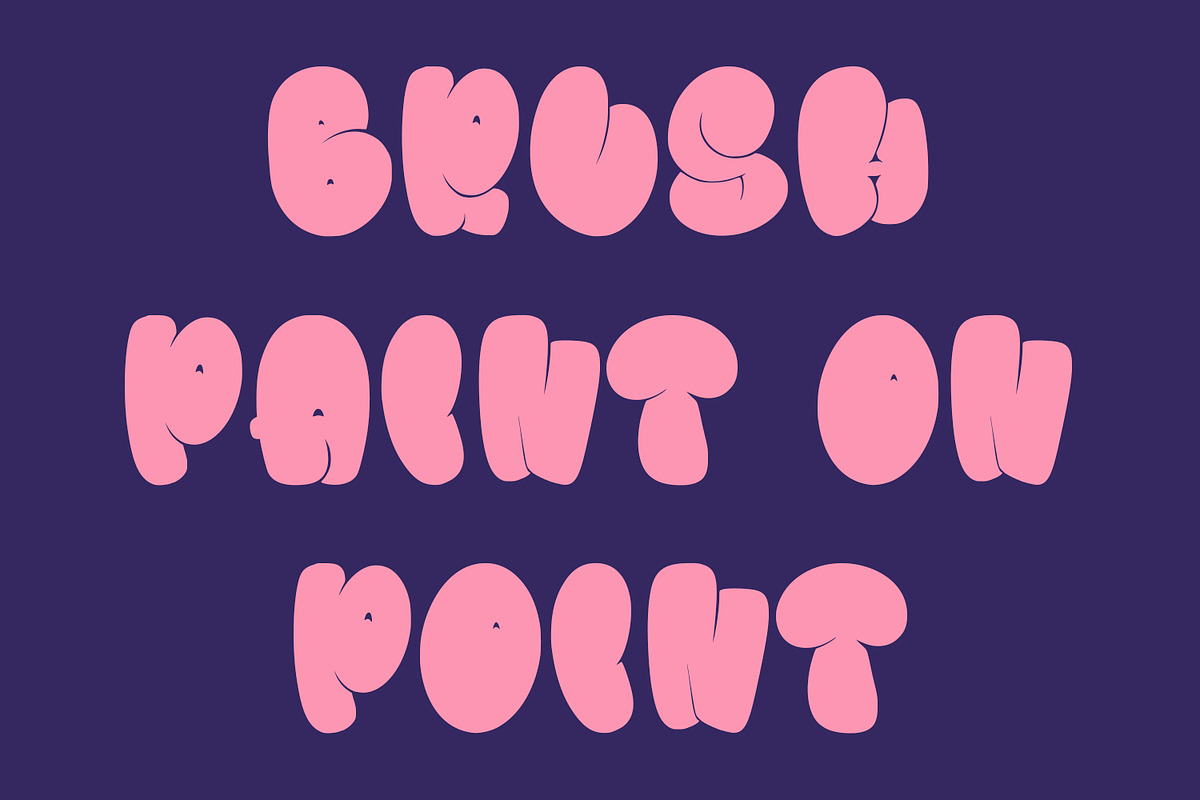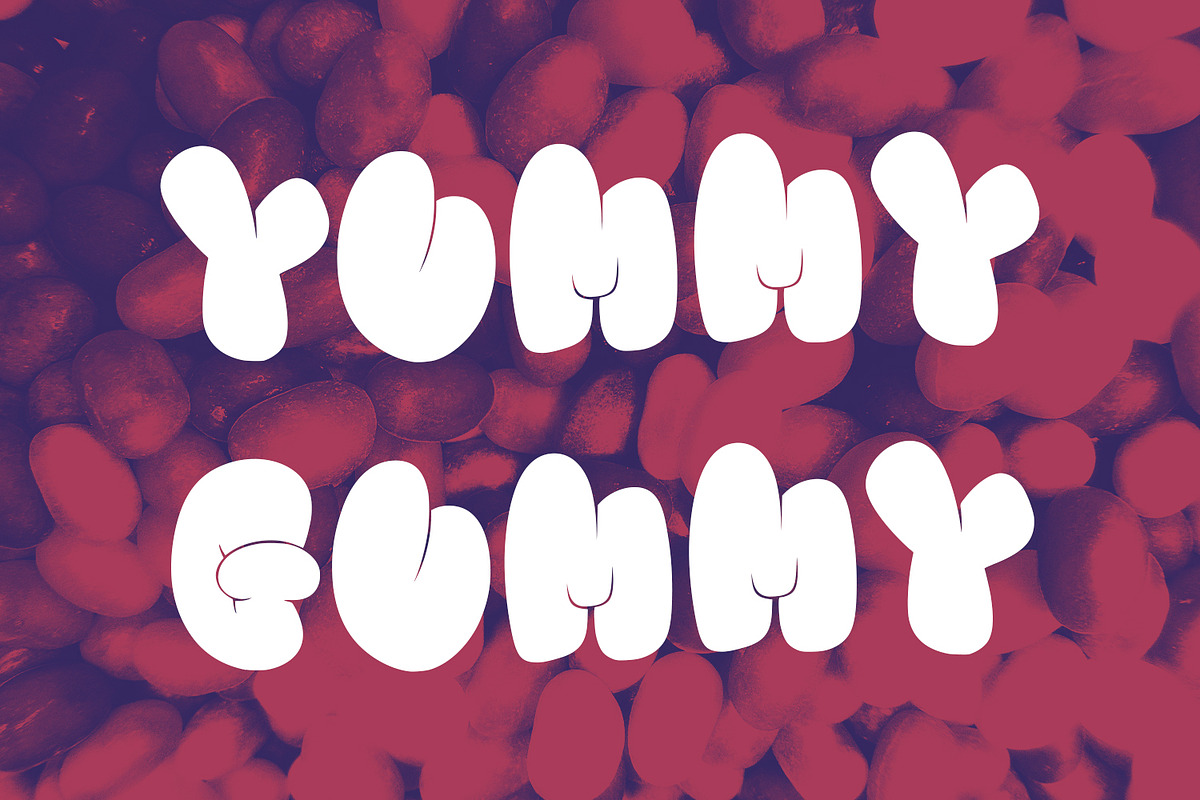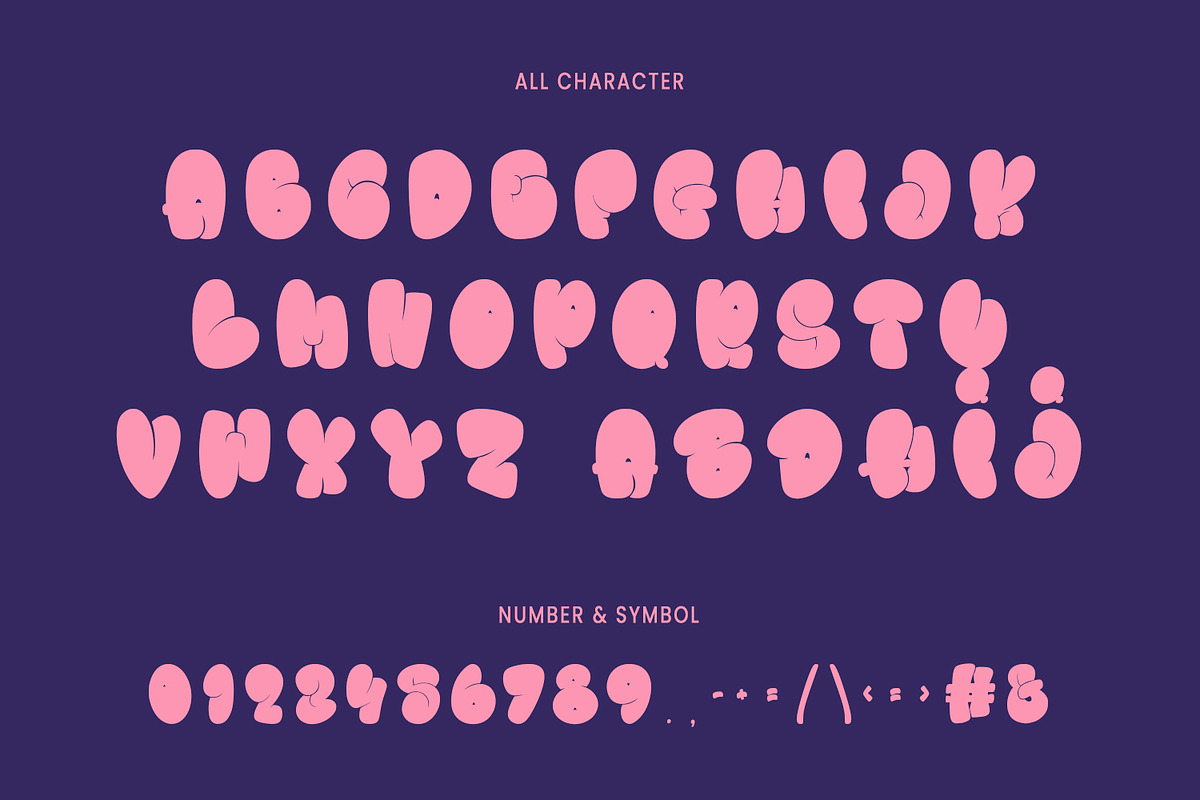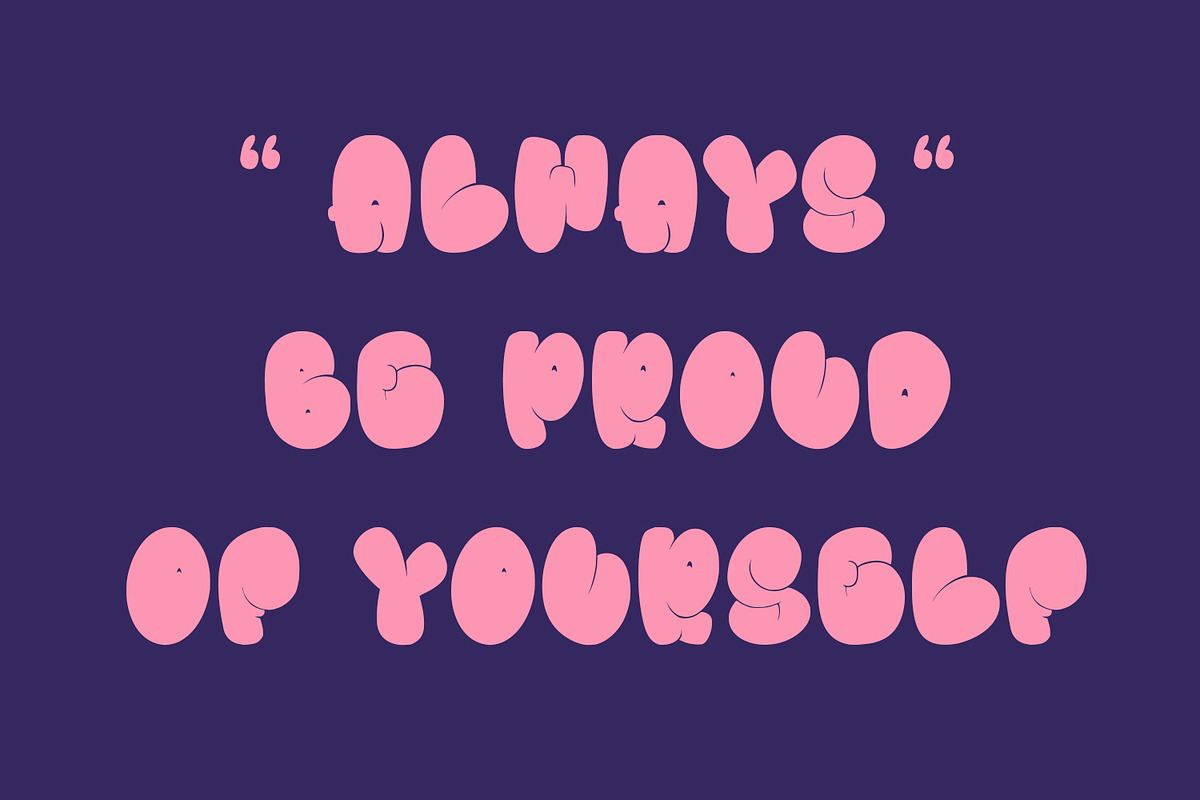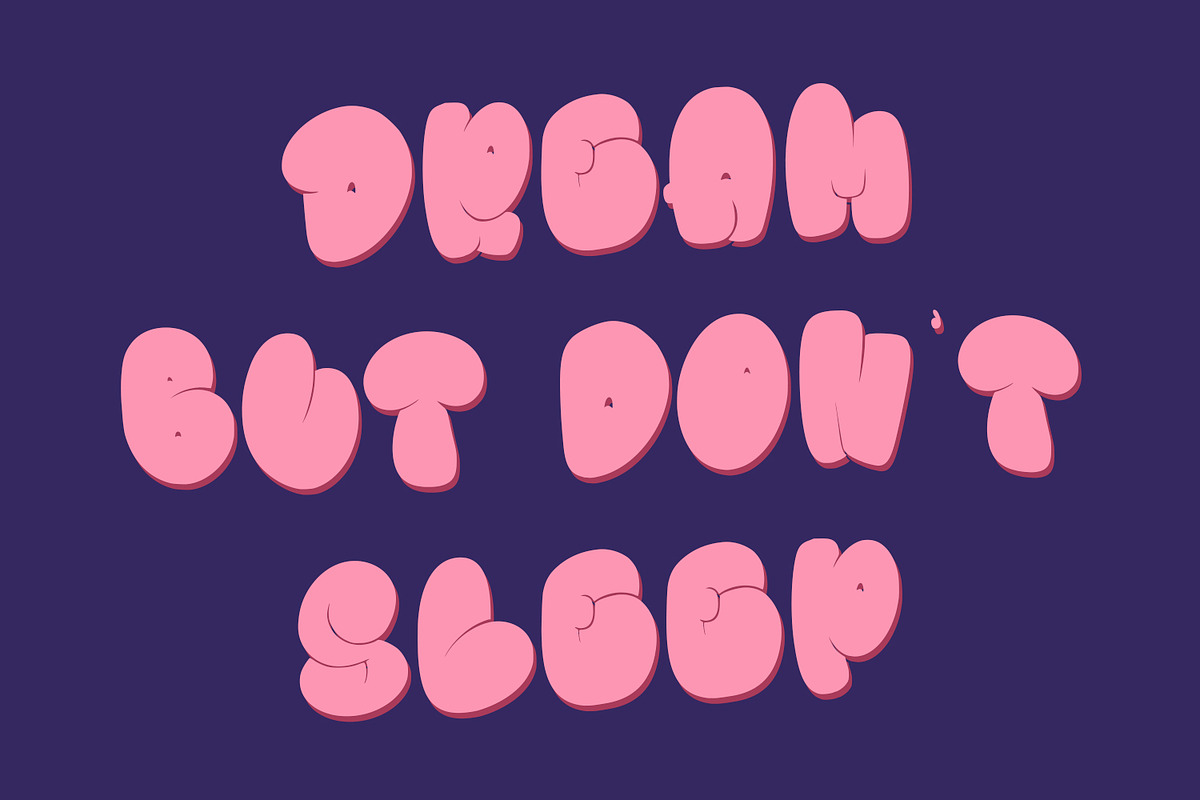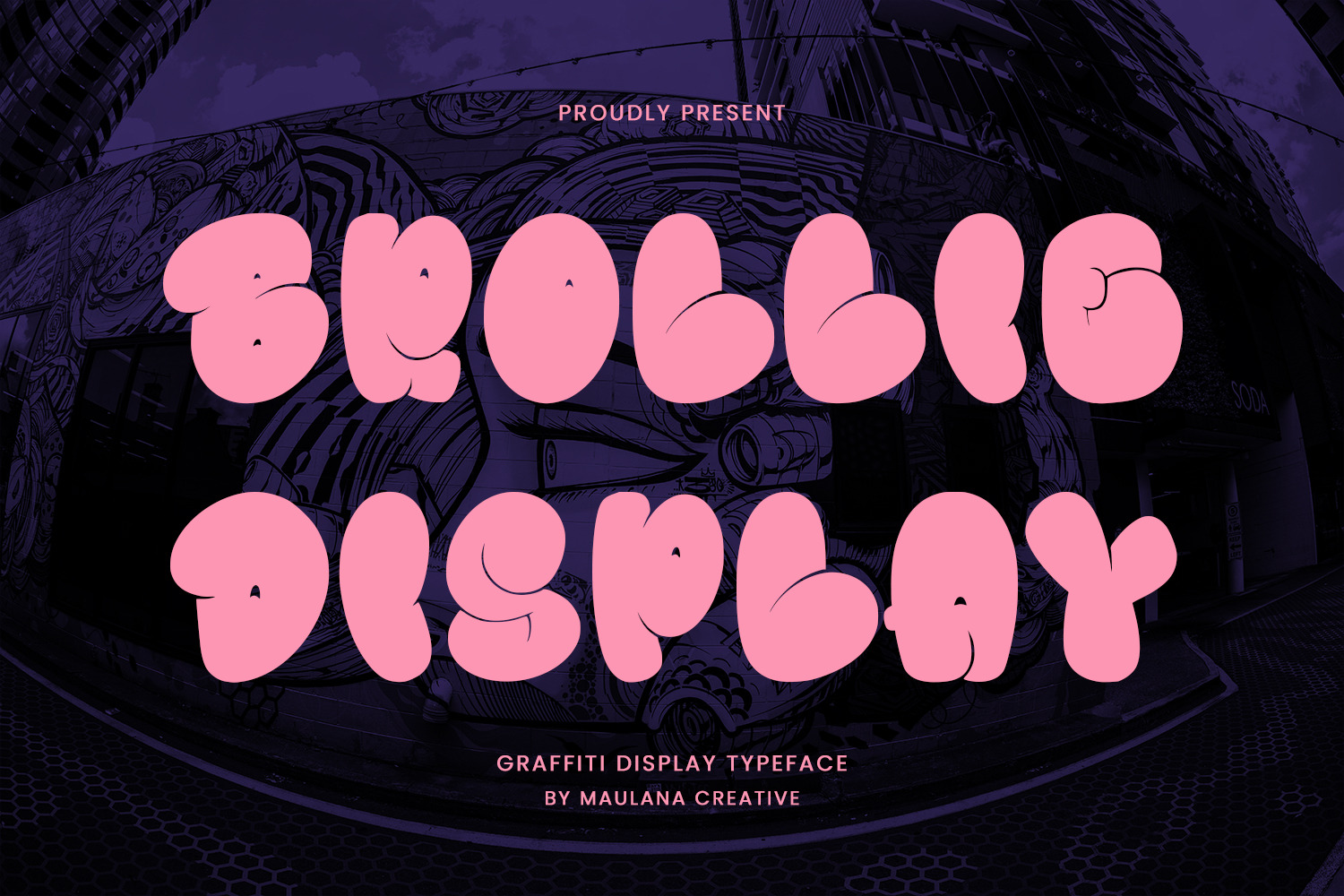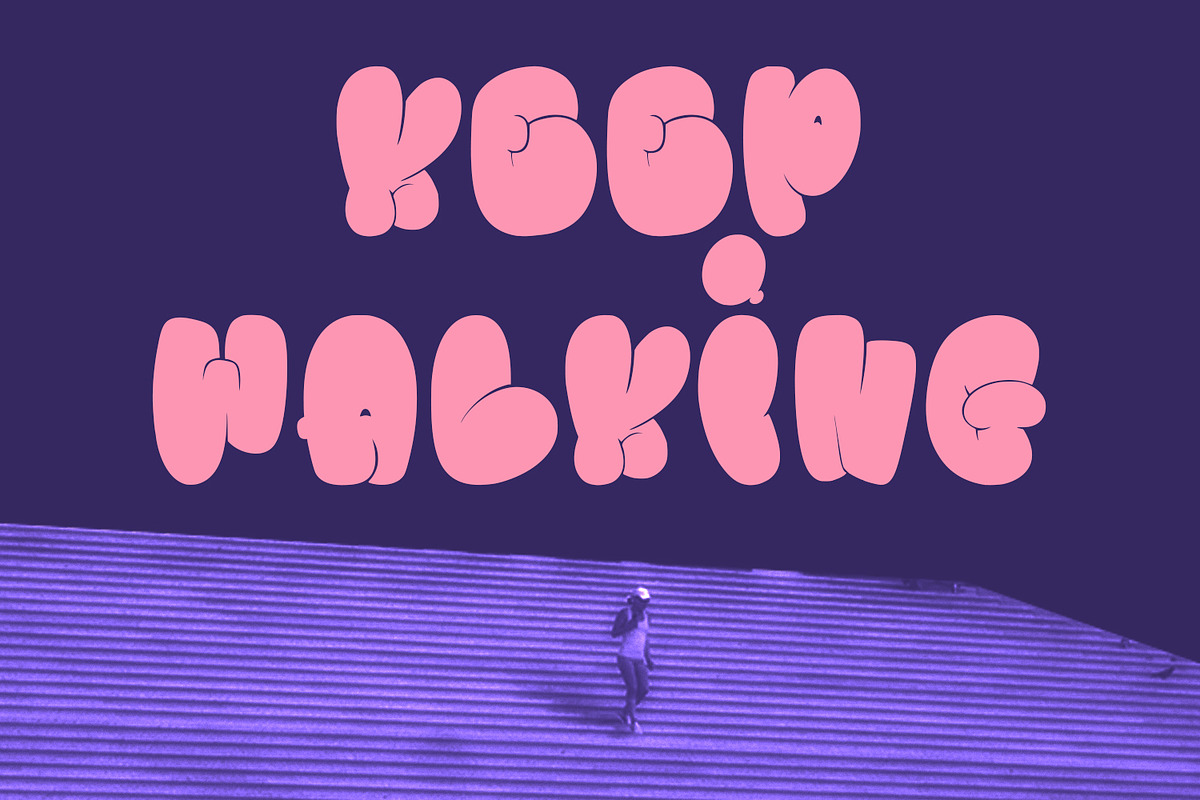
Brollie Graffiti Display Typeface
Brollie graffiti display typeface valentine font. With sharp bold stroke, fun character with a bit of ligatures and alternates. To give you an extra creative work. Brollie graffiti display typeface valentine font support multilingual more than 100+ language. This font is good for logo design, Social media, Movie Titles, Books Titles, a short text even a long text letter and good for your secondary text font with script or serif. Make a stunning work with Brollie graffiti display typeface.